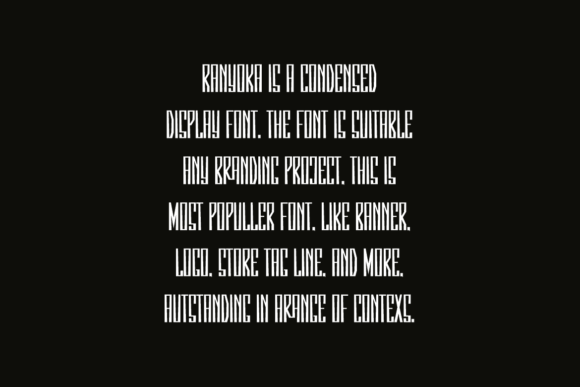
Ranyoka Font: A Magical Sans-Serif Font for Your Designs
Are you tired of using the same old fonts for your designs? Do you want to add a touch of magic to your projects? Look no further than the Ranyoka Font. This incredibly cool and unique sans-serif font is sure to immerse your designs into a magical world. In this article, we’ll take a closer look at the Ranyoka Font, its features, and how you can use it to take your designs to the next level.
What is Ranyoka Font?
Ranyoka Font is a modern sans-serif font that has a whimsical style. It’s perfect for designers who want to add a touch of playfulness and magic to their designs. The font has a unique and quirky feel to it, making it stand out from other fonts in its category. Whether you’re working on a branding project, a website, or a marketing campaign, Ranyoka Font is sure to make your designs pop.
Key Features of Ranyoka Font
- Modern and Whimsical Style: Ranyoka Font has a modern yet whimsical style that will add a touch of magic to your designs.
- Unique and Quirky Feel: The font has a unique and quirky feel to it, making it stand out from other fonts in its category.
- High-Quality Design: Ranyoka Font is designed with high-quality and precision, ensuring that it looks great in any design.
- Easily Readable: Despite its unique style, Ranyoka Font is easily readable, making it perfect for body text and headings.
- Multilingual Support: Ranyoka Font supports multiple languages, making it a great choice for global brands and designers.
How to Use Ranyoka Font in Your Designs
Ranyoka Font is a versatile font that can be used in a variety of designs. Here are some ideas on how to use it:
Design Ideas with Ranyoka Font
- Branding and Logos: Use Ranyoka Font to create a unique and memorable brand identity.
- Websites and Landing Pages: Add a touch of magic to your website or landing page with Ranyoka Font.
- Marketing and Advertising: Use Ranyoka Font in your marketing and advertising campaigns to grab attention and stand out.
- Social Media Graphics: Create engaging social media graphics with Ranyoka Font.
- Print Materials: Use Ranyoka Font in your print materials, such as brochures, flyers, and business cards.
Benefits of Using Ranyoka Font
There are many benefits to using Ranyoka Font in your designs. Here are some of the most significant advantages:
Top Benefits of Ranyoka Font
- Unique and Memorable: Ranyoka Font is a unique and memorable font that will help your designs stand out.
- Modern and Fresh: The font has a modern and fresh feel to it, making it perfect for contemporary designs.
- Easily Readable: Ranyoka Font is easily readable, making it perfect for body text and headings.
- Multilingual Support: Ranyoka Font supports multiple languages, making it a great choice for global brands and designers.
- High-Quality Design: Ranyoka Font is designed with high-quality and precision, ensuring that it looks great in any design.
Tips for Using Ranyoka Font Effectively
Here are some tips for using Ranyoka Font effectively in your designs:
Top Tips for Using Ranyoka Font
- Use it Sparingly: Use Ranyoka Font sparingly to avoid overwhelming your designs.
- Pair it with Other Fonts: Pair Ranyoka Font with other fonts to create a unique and interesting contrast.
- Adjust the Size and Color: Adjust the size and color of Ranyoka Font to suit your design needs.
- Experiment with Different Styles: Experiment with different styles of Ranyoka Font, such as bold and italic.
- Use it Consistently: Use Ranyoka Font consistently throughout your design to create a cohesive look.
Ranyoka Font is an incredibly cool and unique sans-serif font that will add a touch of magic to your designs. With its modern yet whimsical style, high-quality design, and multilingual support, it’s perfect for designers who want to create memorable and engaging designs. By following the tips outlined in this article, you can use Ranyoka Font effectively and take your designs to the next level.